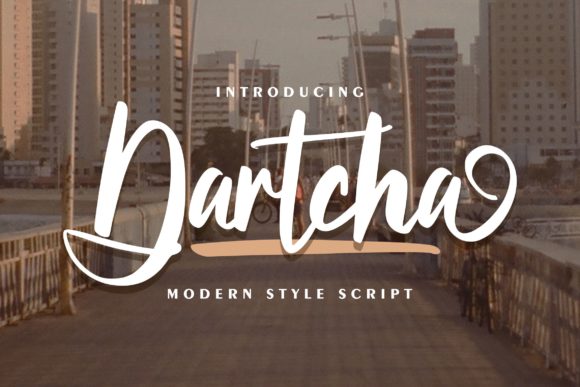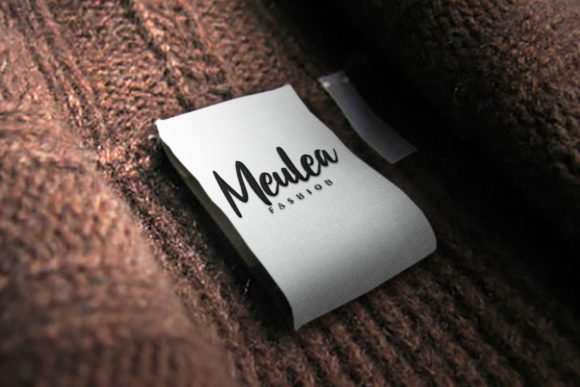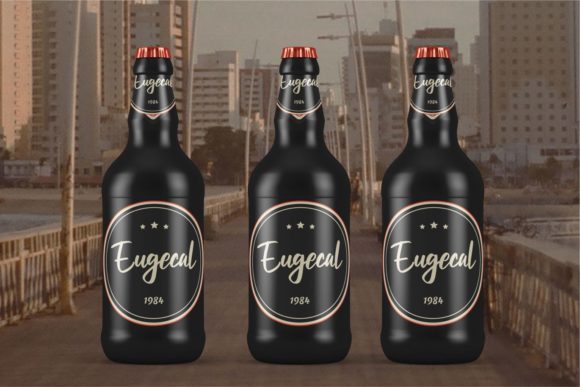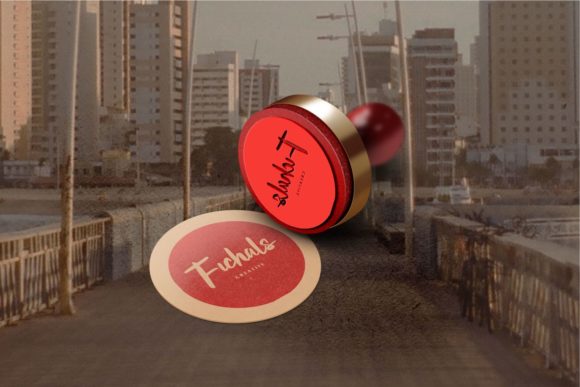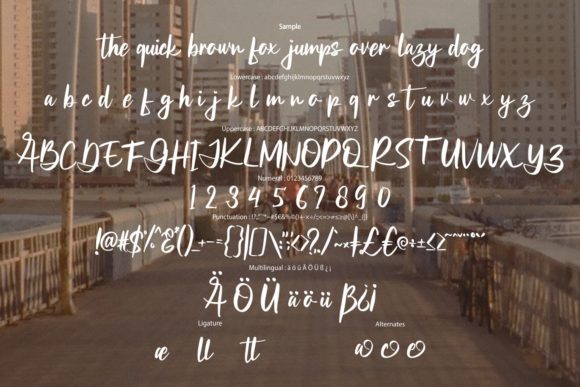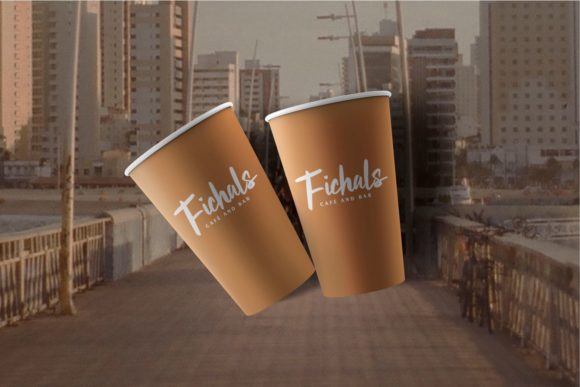
Dartcha Font
About Dartcha Font
Dartcha is a charming and elegant handwritten font that exudes a delicate and dainty look. With its sweet and delicate swashes, this font adds a touch of trendiness to your designs, making it perfect for a variety of crafty projects.
The font’s overall design showcases a balance between elegance and playfulness. The letterforms are crafted with care, featuring thin and graceful strokes that create a sense of sophistication. The delicate swashes add a touch of decorative flair, enhancing the overall aesthetic and making each character unique.
Dartcha is well-suited for a range of design projects. Its elegant and dainty style makes it an excellent choice for letterheads, titles, and other stationery designs. Whether you’re creating personalized stationery for yourself or designing professional materials for a business, Dartcha adds a touch of elegance that elevates the overall look and feel.
The font’s trendy look also makes it appealing for various crafty ideas. From DIY projects and scrapbooking to handmade cards and invitations, Dartcha brings a stylish and contemporary feel to your creations. The sweet and delicate swashes add a decorative element that enhances the visual appeal and captures attention.
When using Dartcha, consider experimenting with different sizes and typographic arrangements to create visually pleasing compositions. The delicate swashes can be used to emphasize certain letters or as decorative elements within the design. Play around with different combinations to find the perfect balance between elegance and creativity.
Additionally, Dartcha can be paired with other typefaces to create interesting contrasts. Combine it with sans-serif fonts for a modern and clean look, or pair it with serif fonts for a more classic and sophisticated feel. The versatility of Dartcha allows you to explore various design possibilities and create unique and eye-catching layouts.
In summary, Dartcha is an elegant and dainty handwritten font with sweet and delicate swashes. Its trendy look makes it suitable for a wide range of crafty projects, from letterheads and titles to stationery designs. The font’s delicate and playful nature adds a touch of sophistication and creativity to your creations, making them visually appealing and captivating.